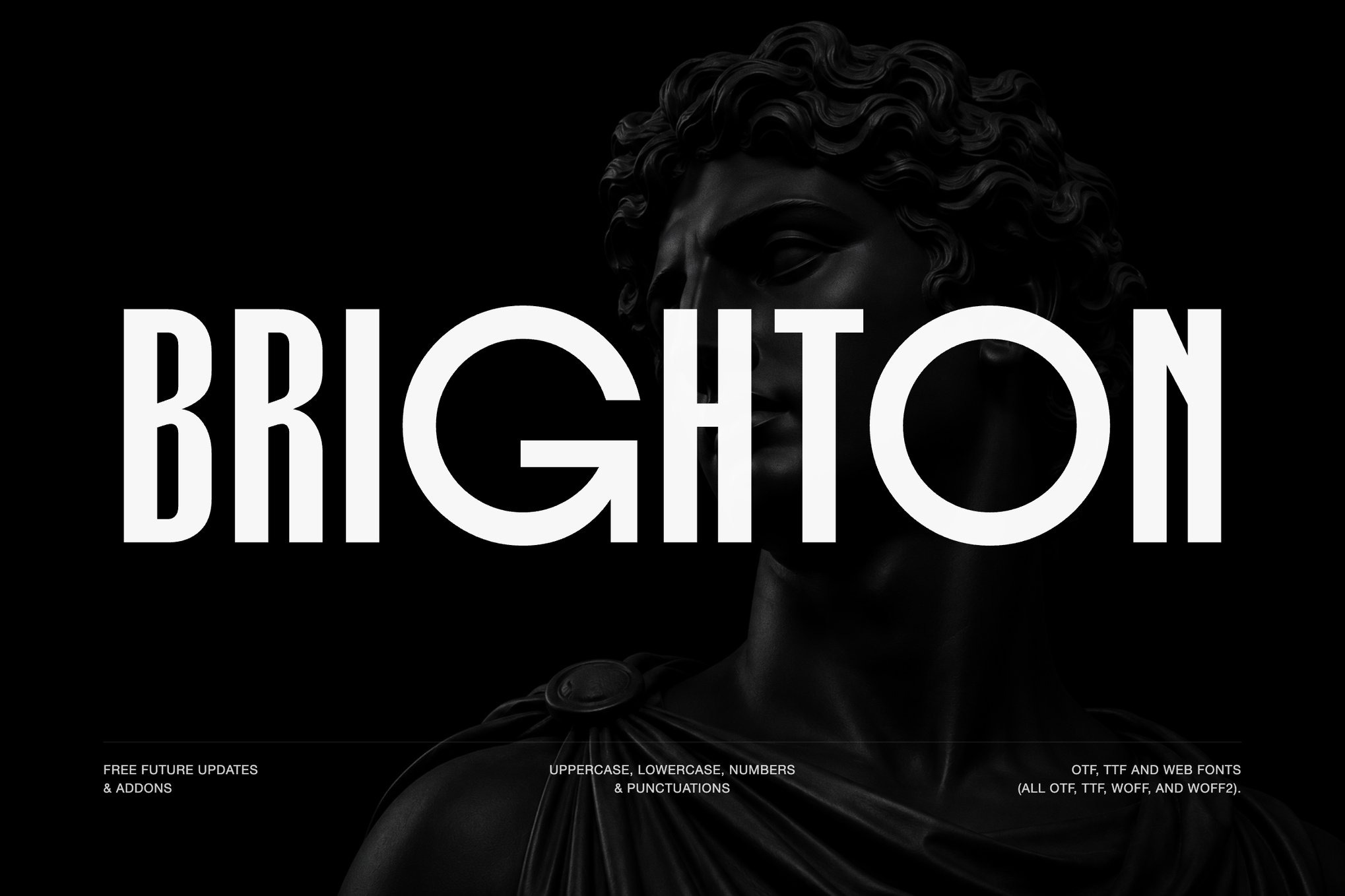
Brighton – Modern Sans Serif Font
Brighton – Modern Sans Serif Font is a distinctive and expressive font crafted to bring personality, structure, and creative energy into your projects. Brighton, a bold and modern display font crafted for standout branding, striking logos, and high-impact visual projects. Featuring a complete character set including uppercase letters, lowercase letters, numbers, and essential punctuation, this versatile typeface delivers clean geometry and premium appeal. Whether you are designing modern packaging, editorial headers, or minimalist social media graphics, Brighton brings professional polish and creative flexibility to your typography collection.